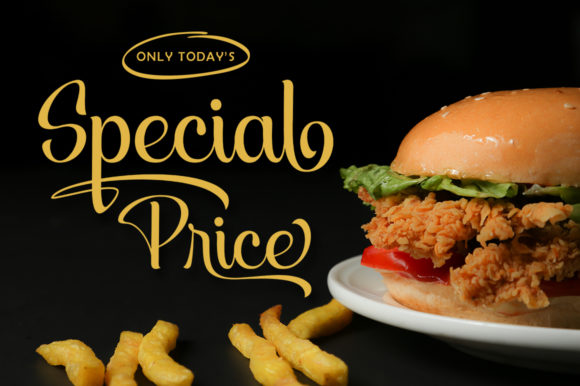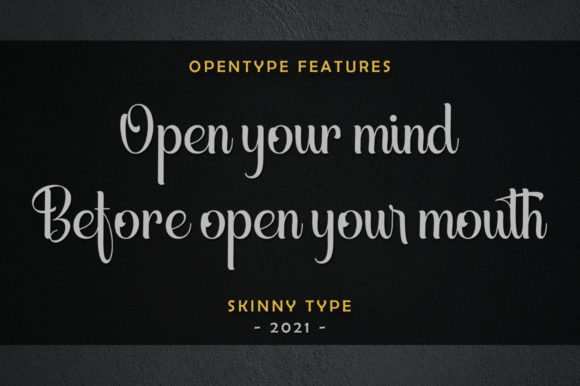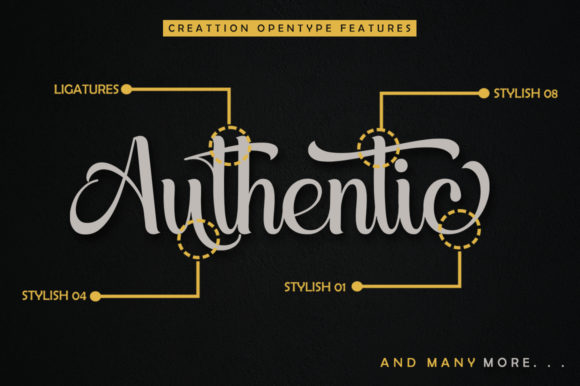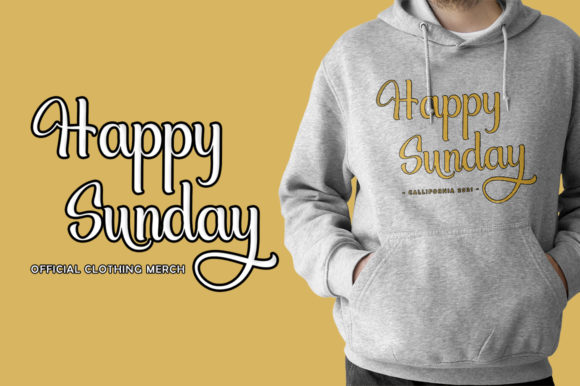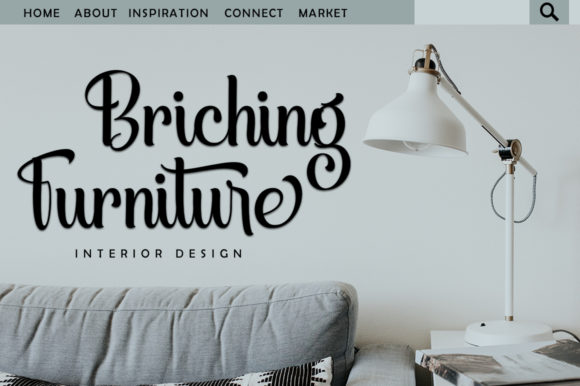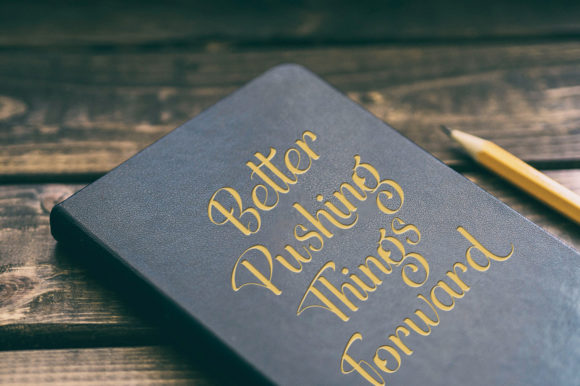
Introducing Creattion Font: A Delightful Cursive Handwritten Font
Are you looking for a font that can add a touch of elegance and romance to your design projects? Look no further than Creattion Font, a beautiful and cursive handwritten font that is sure to impress. With its radiant and refined appearance, Creattion Font is perfect for a variety of design ideas, from wedding invitations and branding to packaging and digital marketing materials.
What Makes Creattion Font Special?
Creattion Font is a standout font that offers a range of features that make it perfect for designers and crafters. Here are just a few of the things that make Creattion Font special:
- Delightful and Cursive Handwritten Style: Creattion Font features a beautiful, cursive handwritten style that is both elegant and refined. The font’s flowing lines and curves create a sense of movement and fluidity, making it perfect for designs that require a touch of sophistication.
- PUA Encoded for Easy Access: Creattion Font is PUA (Private Use Area) encoded, which means that you can access all of the glyphs and swashes with ease. This makes it simple to customize your designs and add your own personal touch.
How to Use Creattion Font in Your Designs
Creattion Font is a versatile font that can be used in a variety of design projects. Here are a few ideas to get you started:
- Wedding Invitations: Creattion Font is perfect for wedding invitations, with its elegant and refined appearance. Use it to create beautiful and romantic invitations that set the tone for the big day.
- Branding and Packaging: Creattion Font is also great for branding and packaging design. Use it to create custom logos, labels, and packaging that stands out from the crowd.
- Digital Marketing Materials: Creattion Font can also be used in digital marketing materials, such as social media graphics, email newsletters, and blog posts. Its elegant appearance makes it perfect for creating professional-looking designs that engage and inspire.
Tips for Getting the Most Out of Creattion Font
To get the most out of Creattion Font, here are a few tips to keep in mind:
- Experiment with Different Sizes and Colors: Creattion Font looks great in a range of sizes and colors. Experiment with different combinations to find the one that works best for your design.
- Use the Swashes and Glyphs: Creattion Font’s PUA encoding makes it easy to access the swashes and glyphs. Use these to add a personal touch to your designs and create something truly unique.
- Pair it with Other Fonts: Creattion Font can be paired with other fonts to create a unique and interesting design. Try pairing it with a bold sans-serif font for a striking contrast.